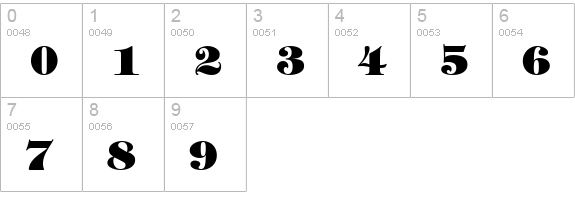
Sophisticate Ultra SSi Black is an extreme-weight, display variant in the Sophisticate typeface family \xE2\x80\x94 well suited to extreme display use where maximum visual weight is required.
Sophisticate Ultra SSi Black font is an epitome of elegance and sophistication. With its sleek and refined design, this font exudes a sense of modernity and style. The bold and sharp strokes of each letter convey a strong presence, making it perfect for headlines, titles, and logos. This font is not only visually appealing but also highly versatile. Its clean and well-defined characters ensure readability even at smaller sizes, making it suitable for various design projects such as print materials, website designs, and branding. One of the most remarkable features of Sophisticate Ultra SSi Black font is its versatility in complementing different design styles. Whether you're aiming for a contemporary and minimalistic look or a more classic and timeless design, this font effortlessly adapts to your vision. The best part is that Sophisticate Ultra SSi Black font is available for free download at FontsMarket.com. This means that you can easily access and utilize this stunning font without any cost or hassle. With just a few clicks, you can enhance your designs with the elegance and sophistication that this font brings. So, if you're looking for a font that combines modernity, style, and versatility, look no further than Sophisticate Ultra SSi Black font. Download it for free at FontsMarket.com and elevate your design projects to new heights.